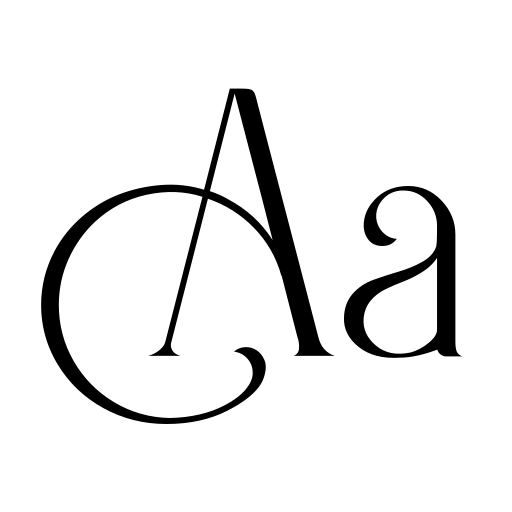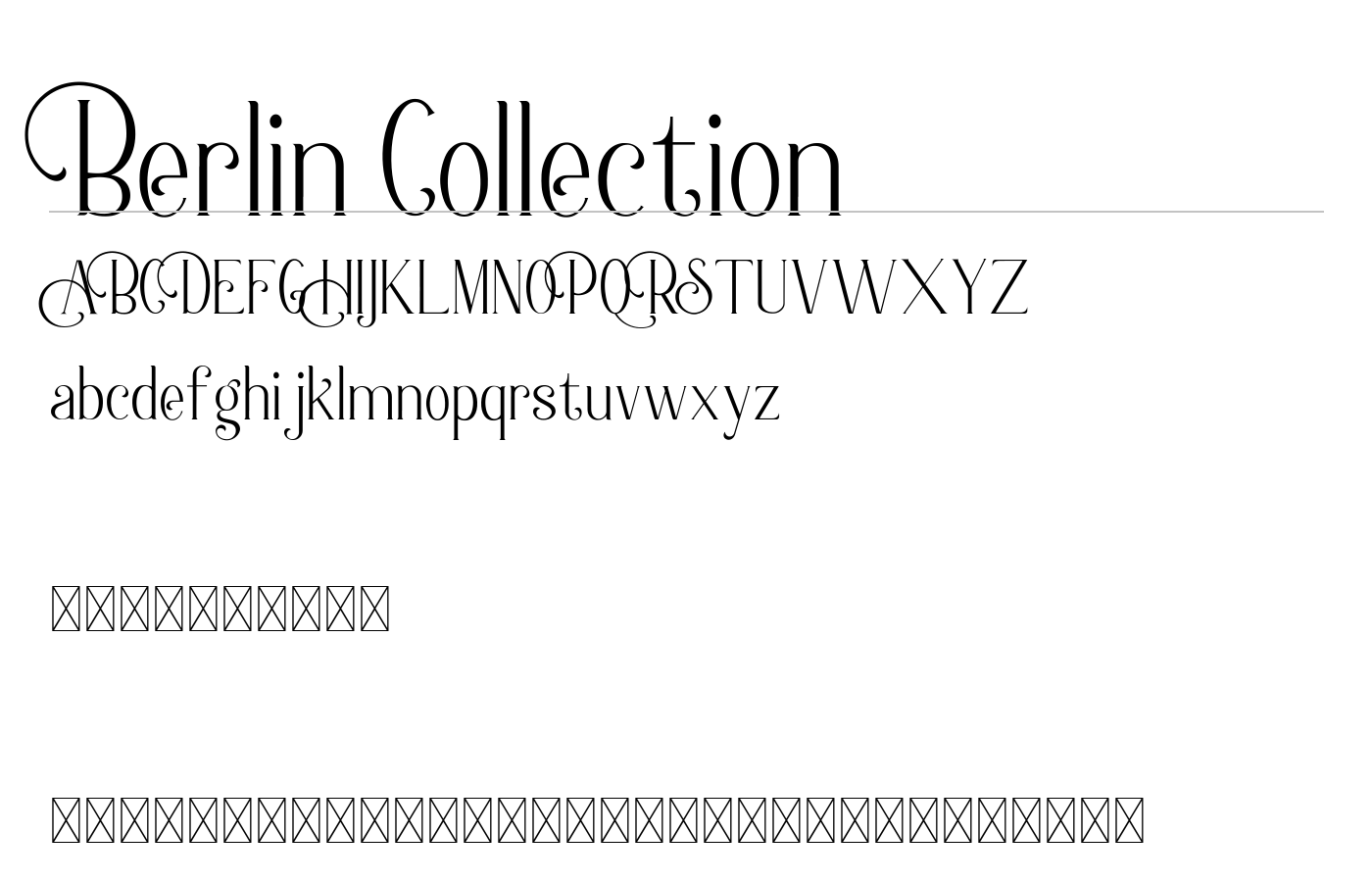
Berlin Collection is an elegant serif font with a tall, slender structure and delicate thin strokes that give it a refined, vintage charm. Its distinctive curled terminals and artistic flourishes add a playful, sophisticated personality, making it ideal for stylish branding, editorial headlines, and luxury packaging where a unique, graceful touch is desired. This font works beautifully when you want to evoke a sense of classic elegance combined with a modern artistic flair.
Berlin Collection Font
About Berlin Collection Font